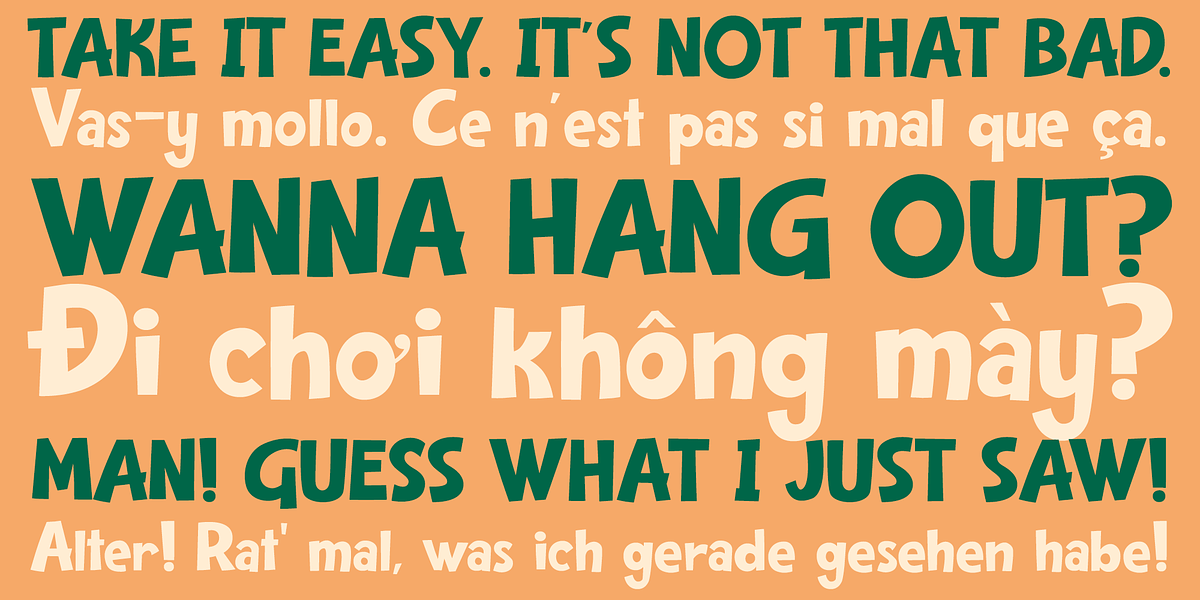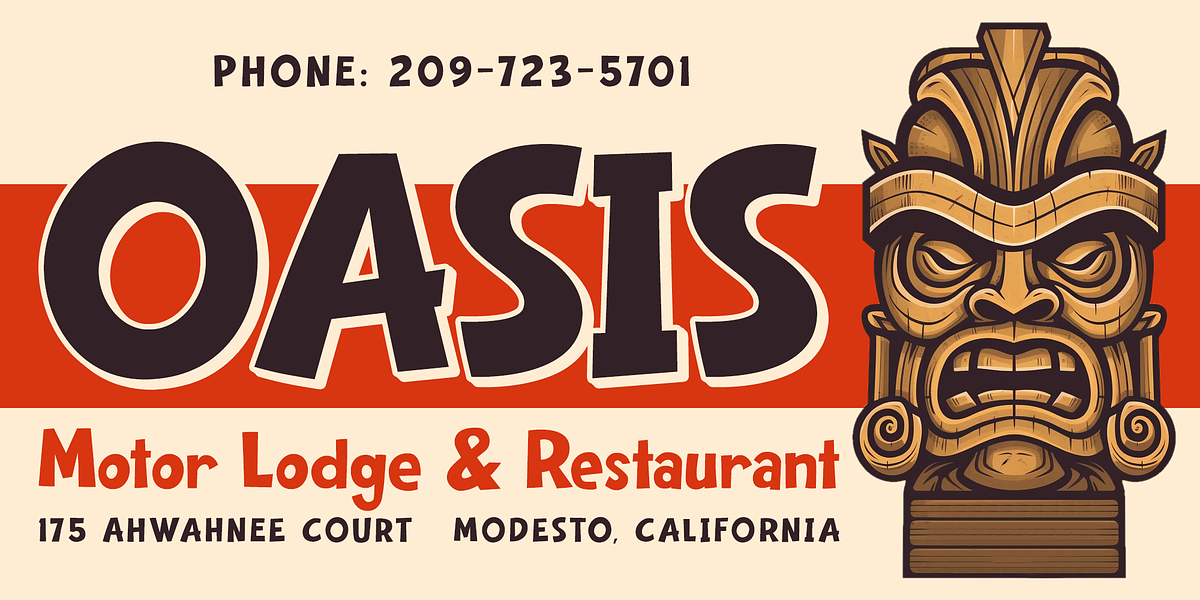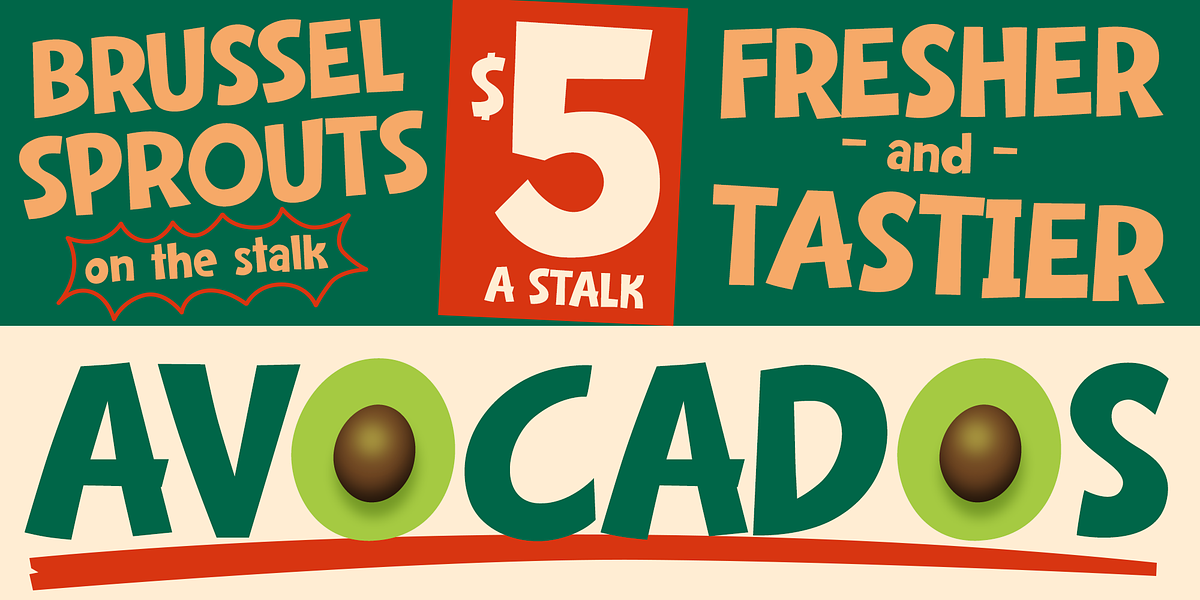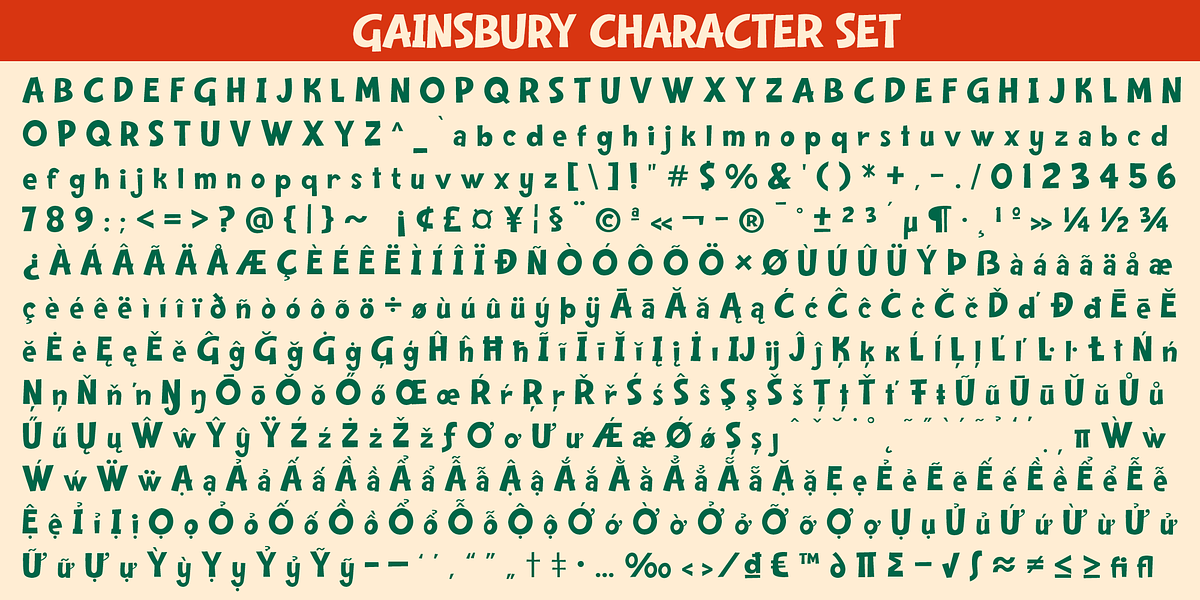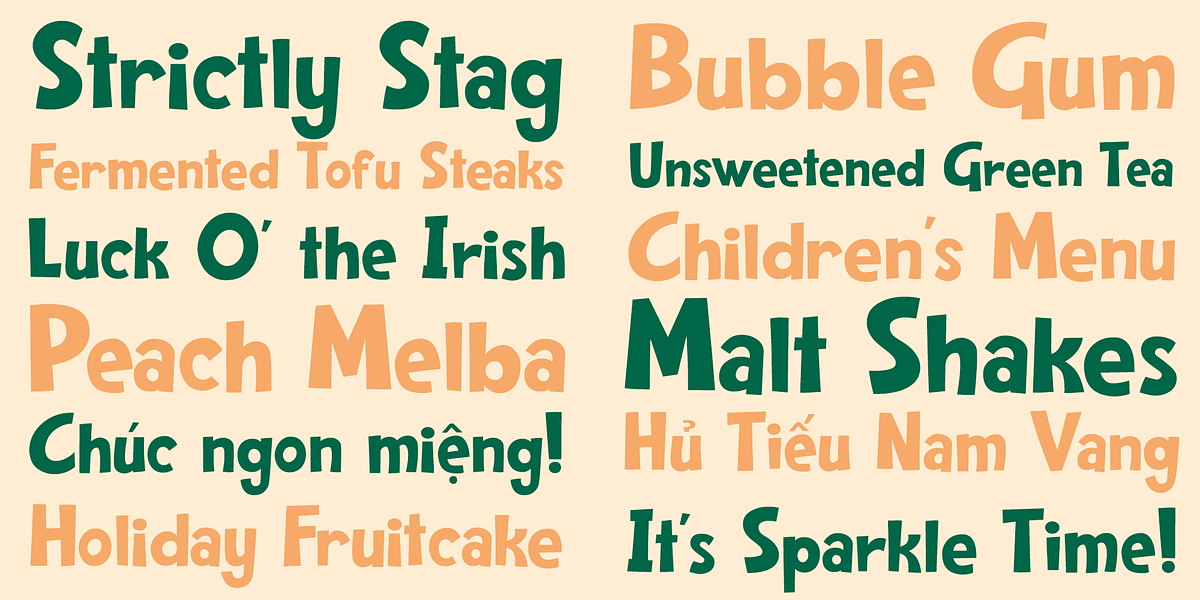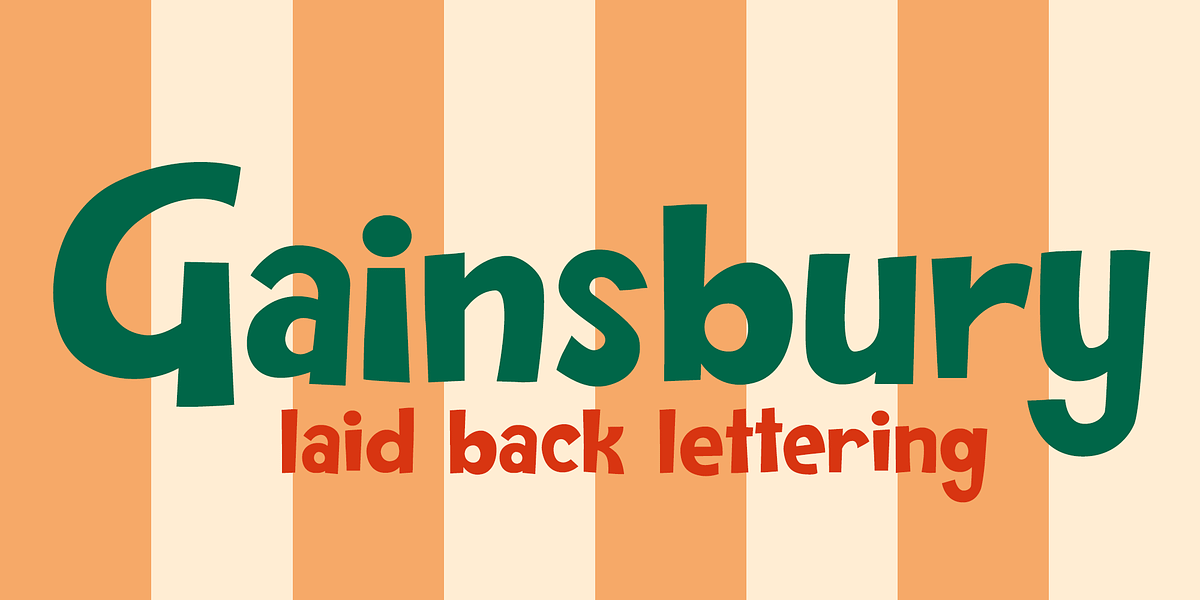
Gainsbury
Gainsbury is a hand-drawn display font characterized by its bouncy and whimsical style. Its playful personality makes it suitable for fun events and lighthearted content, bringing a touch of cheerfulness to any design.